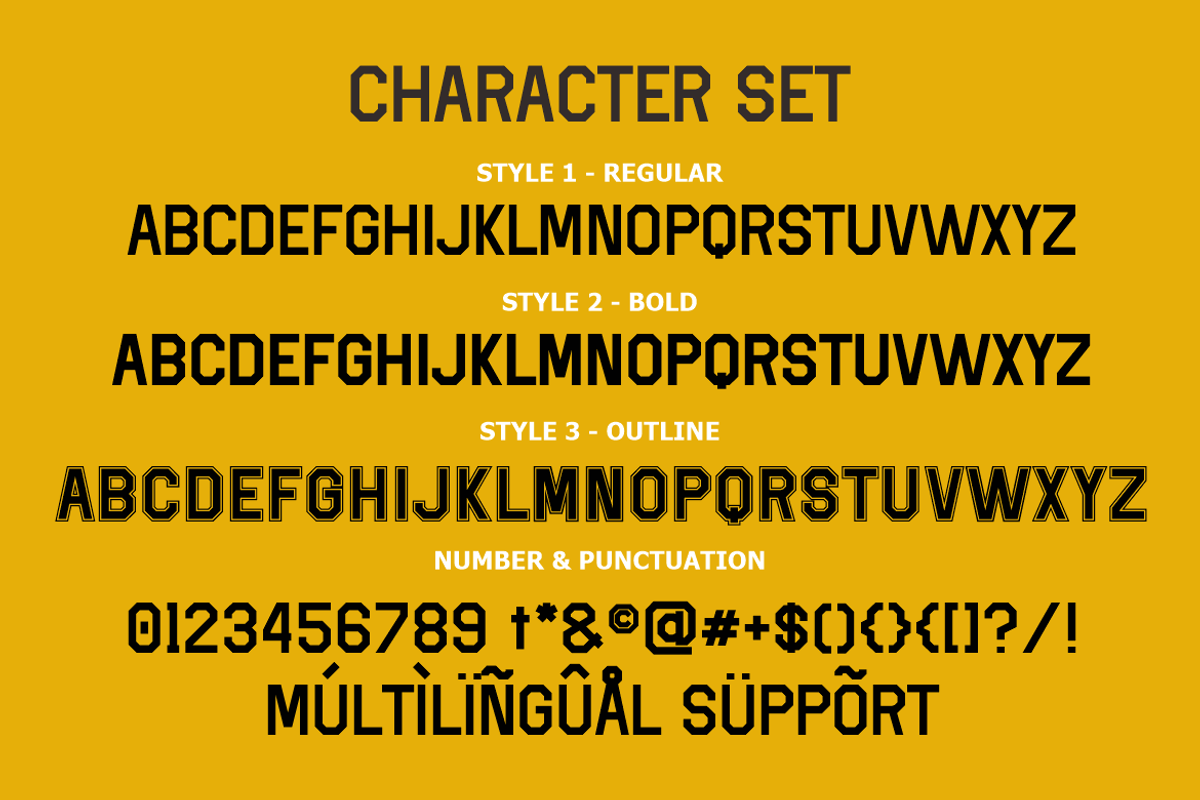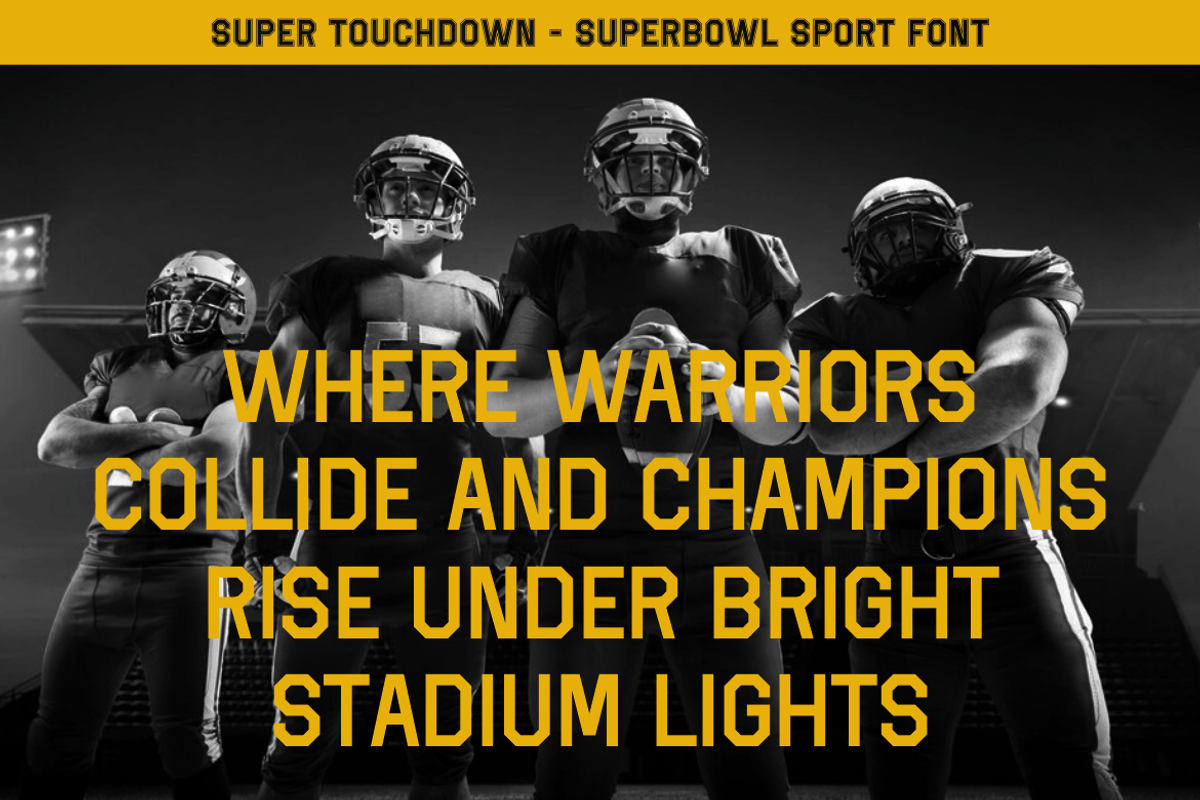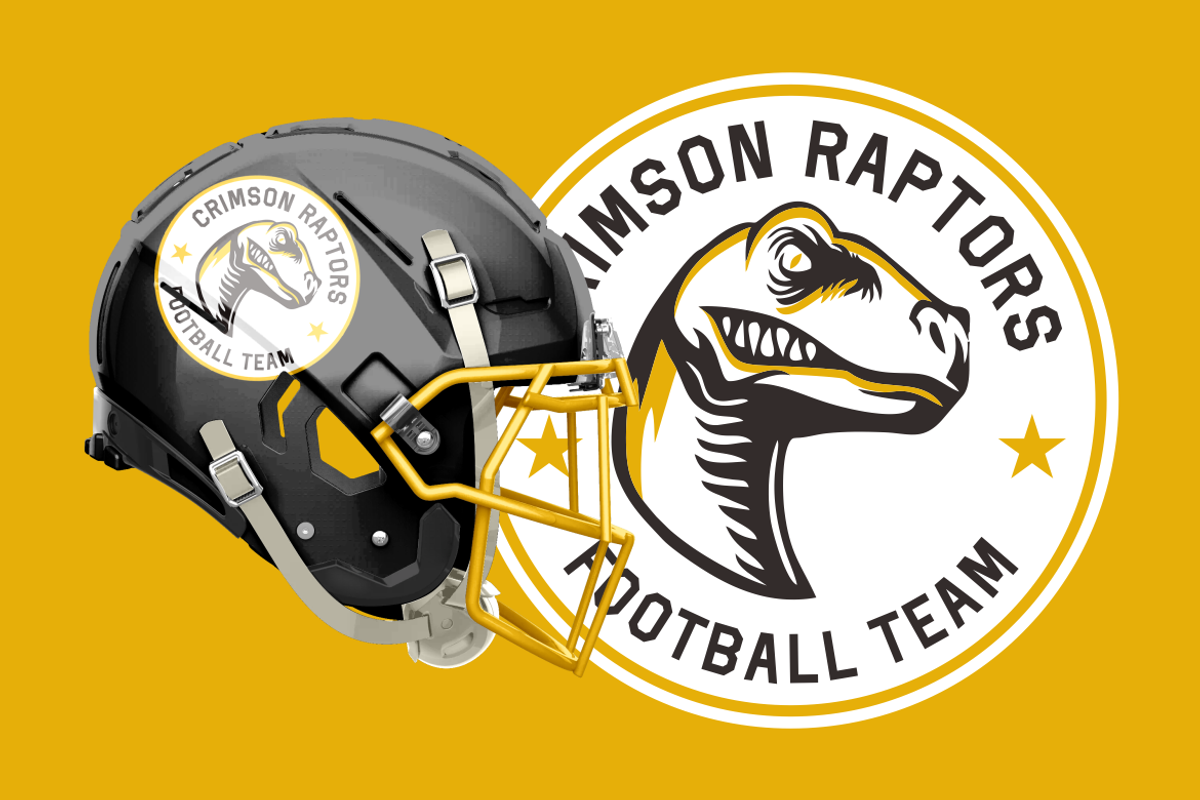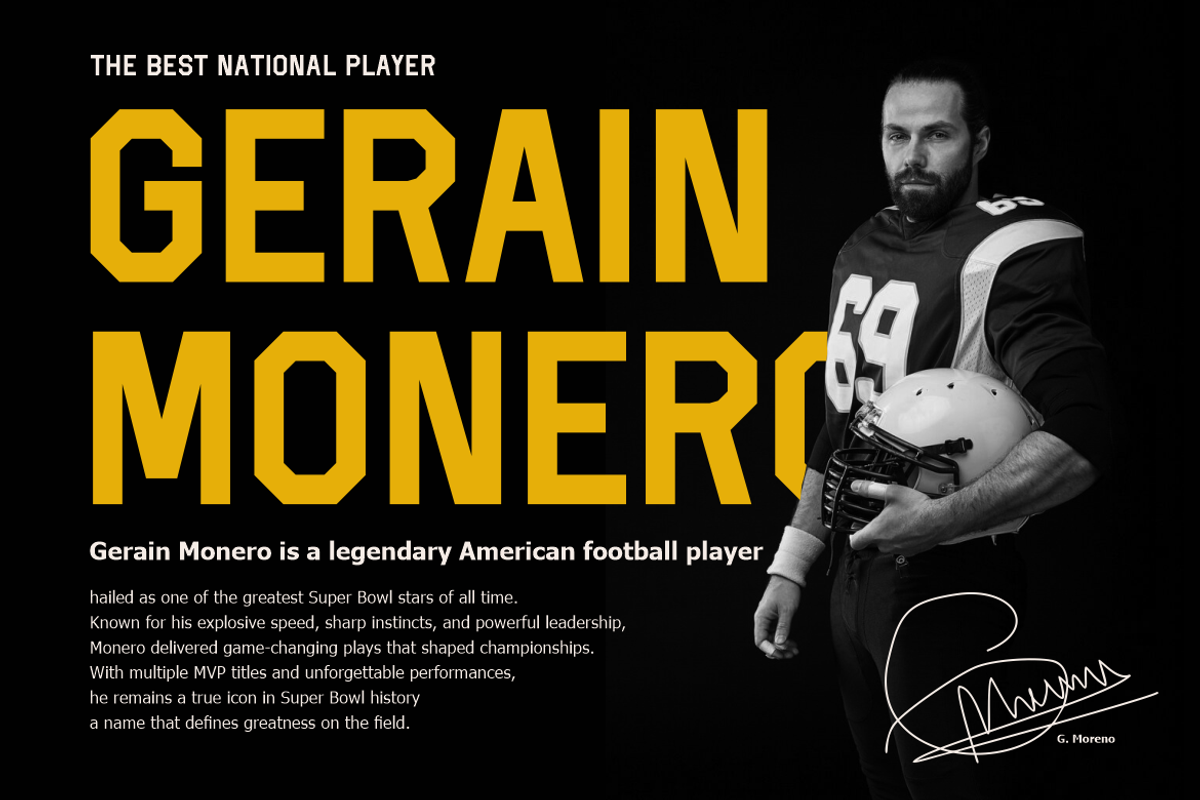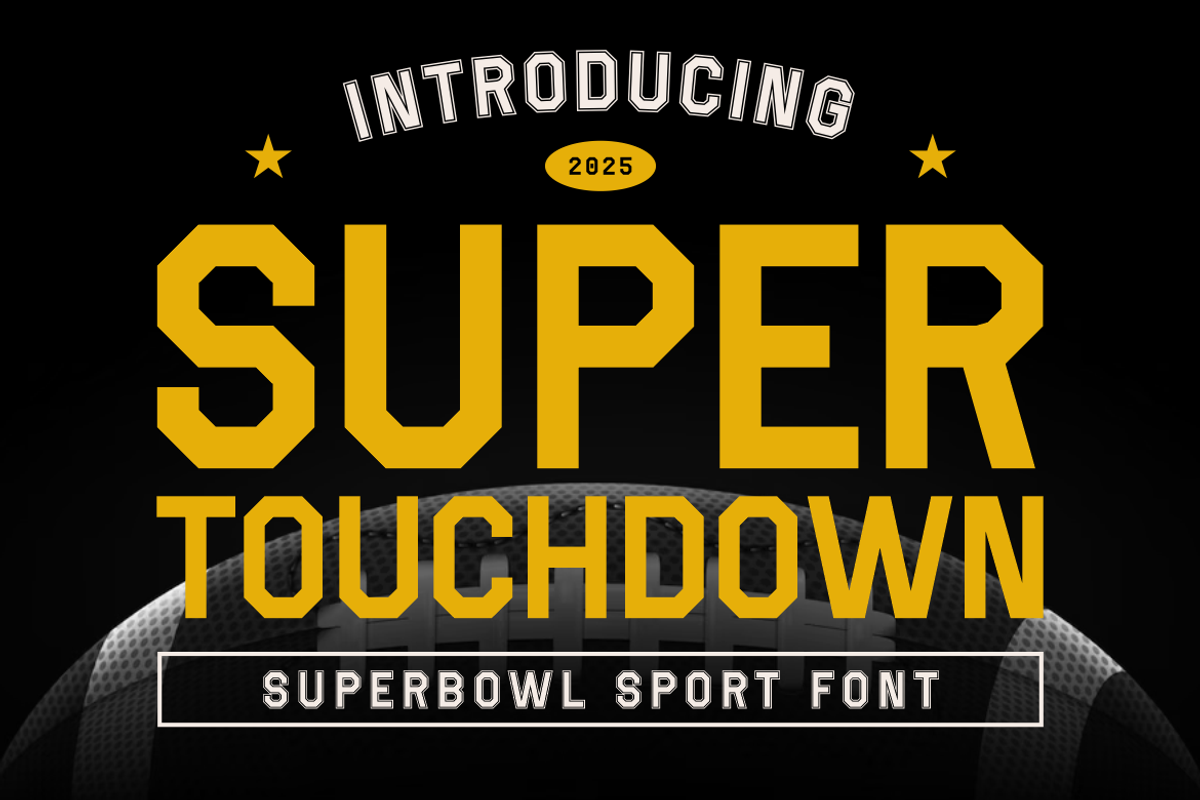
Super Touchdown - Superbowl Sport Fo
Super Touchdown – Superbowl Sport Font is an outstanding digital font designed specifically to capture the powerful and exhilarating spirit of American football, particularly the prestigious Superbowl event. With its bold, geometric, and blocky characters, the font exudes strength, competitiveness, and dynamism, characteristics synonymous with football culture. This typeface is presented in three distinct styles: Regular, Bold, and Outline, each offering versatility for impactful and engaging design choices. Its strong, sharp-edged, and easily legible structure makes it ideal for prominent displays and headlines, effectively capturing the viewers' attention.
The layout of Super Touchdown has been meticulously designed for maximum visibility and readability, making it perfect for various applications such as branding, logos, promotional materials, posters, and merchandise for sports teams. Moreover, it is exceptionally suited for sports event promotions, packaging, crafting projects, stickers, magazine covers, and film titles. Its authoritative presence and sports-oriented aesthetics enable designers and businesses to evoke excitement, passion, and a competitive edge. If you're seeking a powerful, sporty, and vibrant typeface that commands attention and resonates deeply with football enthusiasts, Super Touchdown is your ultimate digital asset.